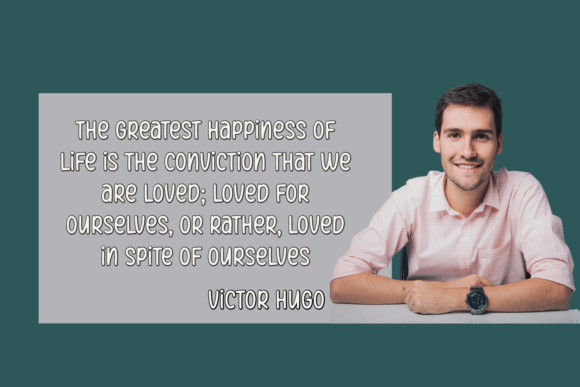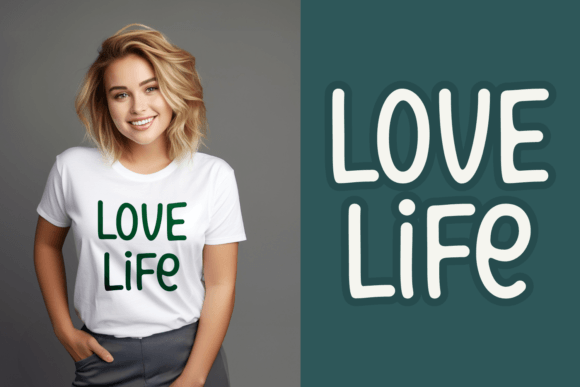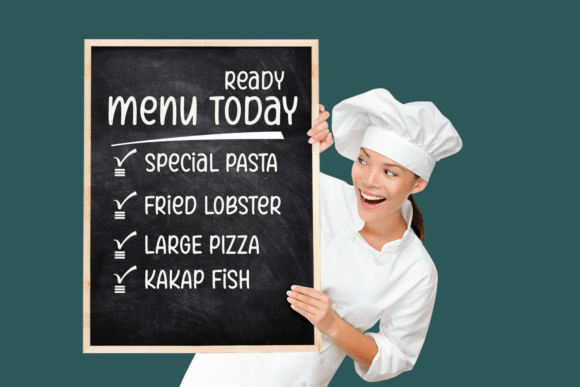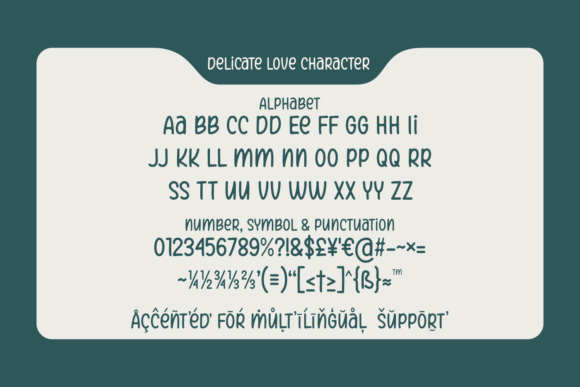
Introduction to Delicate Love Font
Indulge in the beauty of Delicate Love – a font that beautifully intertwines elegance with practicality.
Ideal for a variety of applications including display purposes, book covers, or even an expressive touch to your t-shirt designs With its charm and grace, Delicate Love effortlessly enhances the aesthetics of any project it touches, creating a unique and inviting ambiance.
Key Features of Delicate Love Font
Why Choose Delicate Love Font?
Delicate Love Font offers exceptional quality and versatility, making it a valuable addition to your design toolkit. Whether you’re creating for personal projects or commercial use, Delicate Love Font delivers professional results.